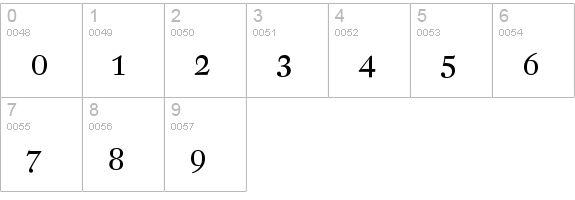
DTL Fleischmann D Regular Caps Font Details
DTL Fleischmann D Regular Caps is the standard, neutral variant in the DTL typeface family \xE2\x80\x94 well suited to general body text, paragraphs, and standard typographic work.
DTL Fleischmann D Regular Caps is a timeless and elegant typeface that exudes sophistication and classic appeal. With its clean lines and sharp angles, this font is perfect for conveying a sense of professionalism and refinement in any design project. The uppercase characters are bold and commanding, making a strong statement on any page. This versatile font is ideal for a wide range of applications, from editorial design and branding to packaging and signage. Its clarity and readability make it a popular choice for both print and digital projects. Whether you are designing a sleek corporate brochure or a stylish website, DTL Fleischmann D Regular Caps will elevate your work to the next level. Best of all, this premium font is available for free download at FontsMarket.com. Now you can add a touch of sophistication to your projects without breaking the bank. Download DTL Fleischmann D Regular Caps today and see the difference it can make in your designs.